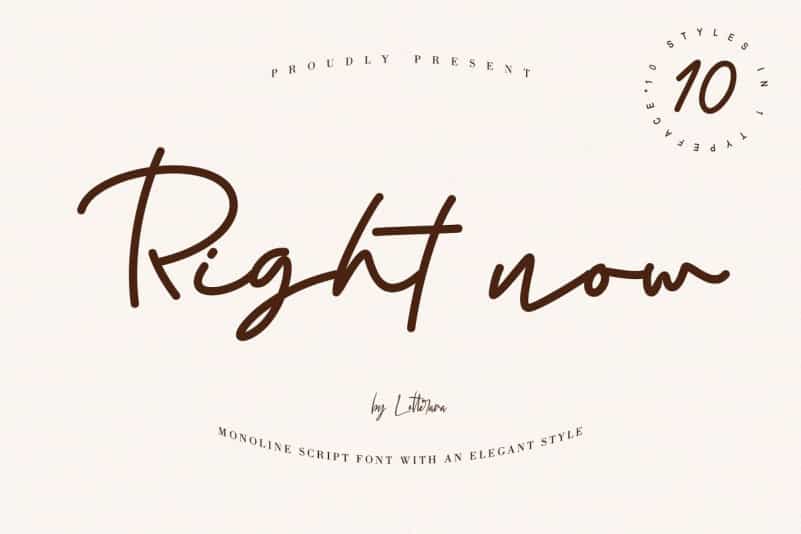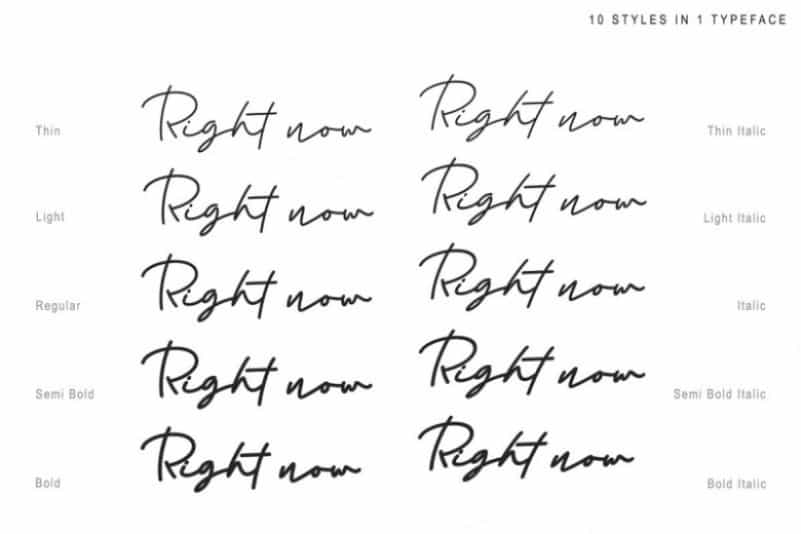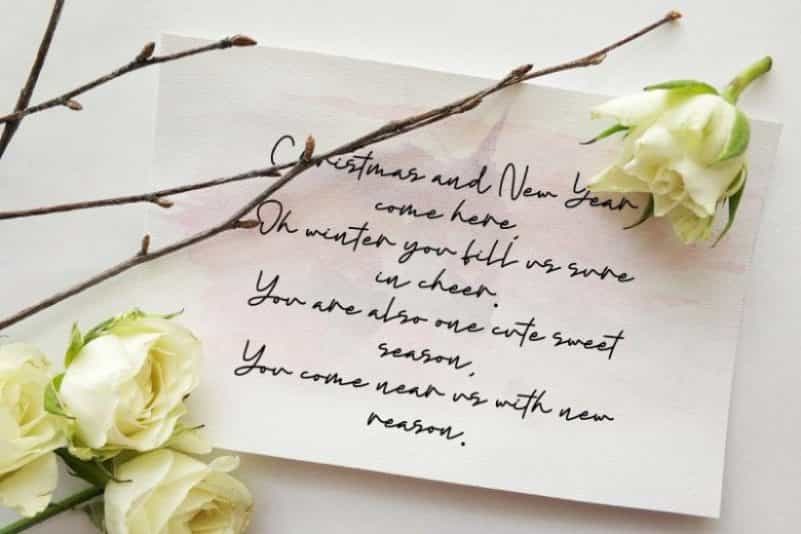
Right Now Signature is now a monoline script and has an elegant appearance. This is a truly contemporary styled piece that will inspire you. It’s available in 10 fonts in 1 typefaces. This font can be used in thickness such as Thin, Light, Regular, Semi Bold, Bold, Thin Italic, Light Italic, Semi Bold Italic, Bold Italic and the best of all, Right now.